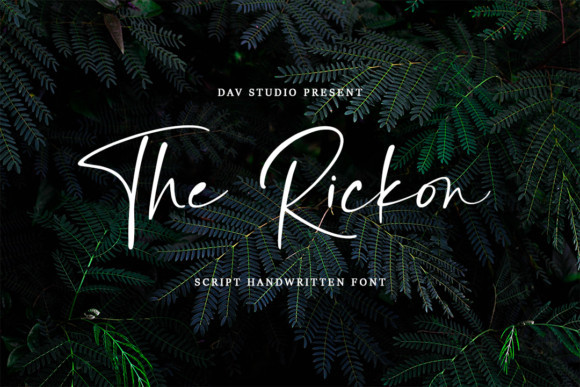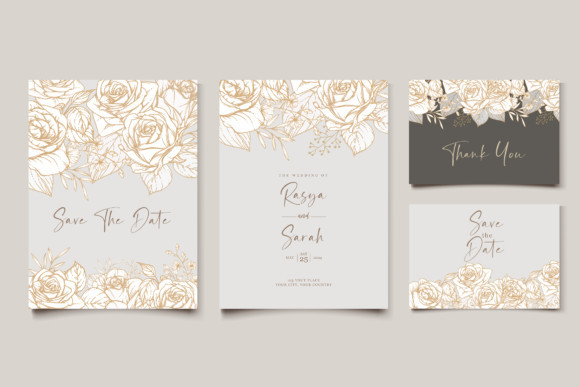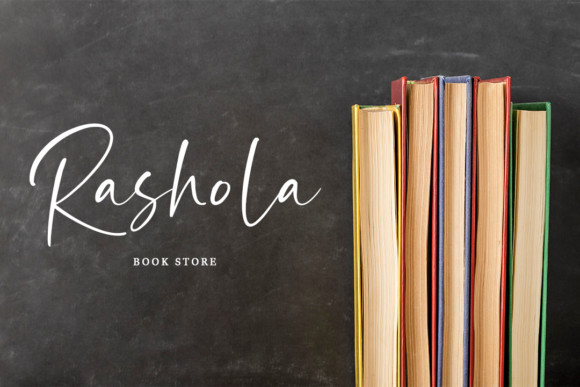
The Rickon Font
The Rickon is an amazing script font. It looks relaxed and elegant. And it is perfect for branding, logos, stationery, greeting cards and much more! This is PUA encoded, which means that you can get the special and cute characters with ease.